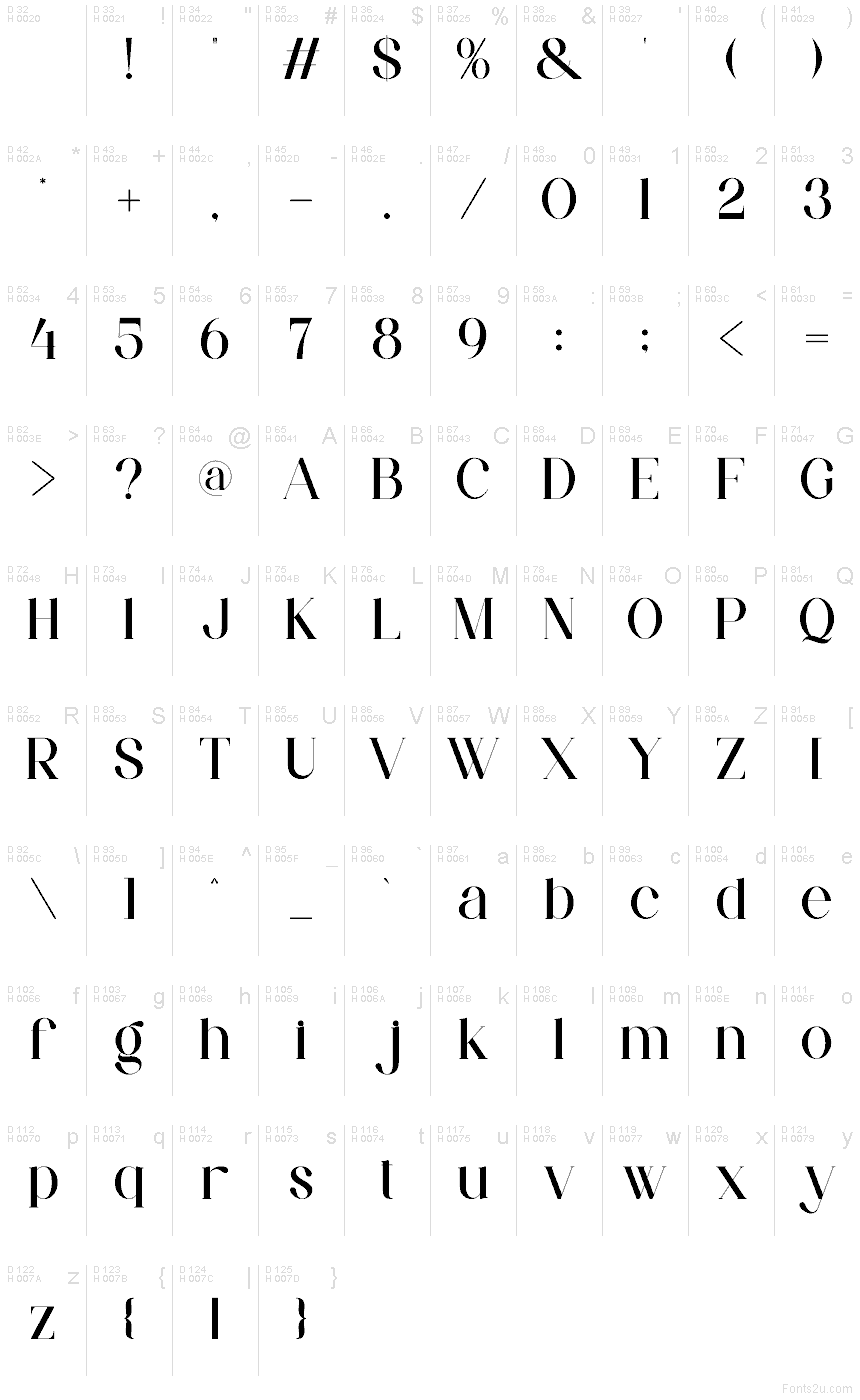
Venume
Venume font by Ermedia Studio is a free high‑contrast serif display font. With razor-fine hairlines and sculpted, inky thicks, it brings that glossy-magazine snap to headlines and logos. The letters feel tailored—sleek verticals, tight rhythm, and elegant curves—so your message reads as luxe without shouting.
Using Venume, you’ll shine on fashion branding, magazine covers, beauty packaging, perfume labels, event invitations, hero banners, and social media promos. This free font thrives at larger sizes where its contrast can gleam; keep tracking slightly open for air. Pair with a clean geometric sans for body copy to let Venume’s dramatic forms take center stage.